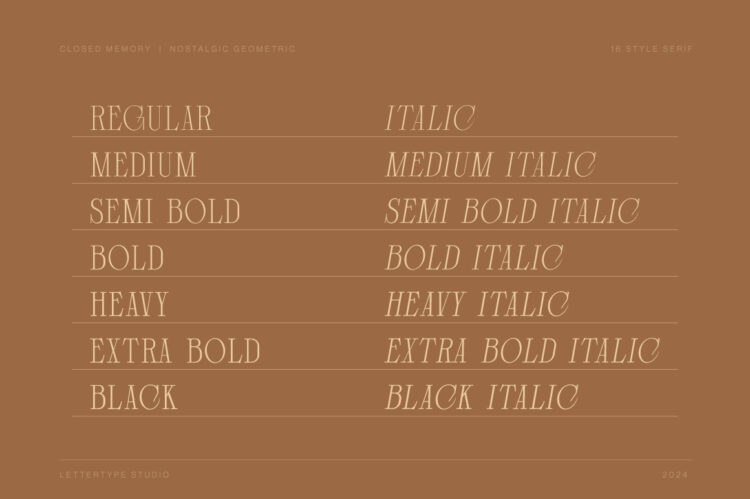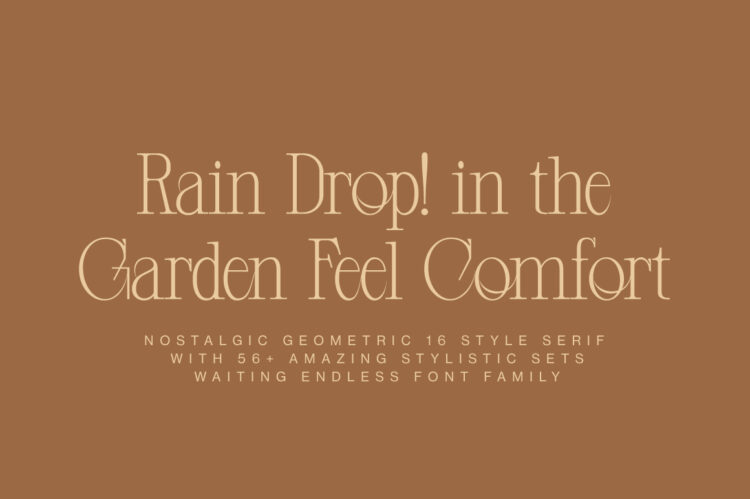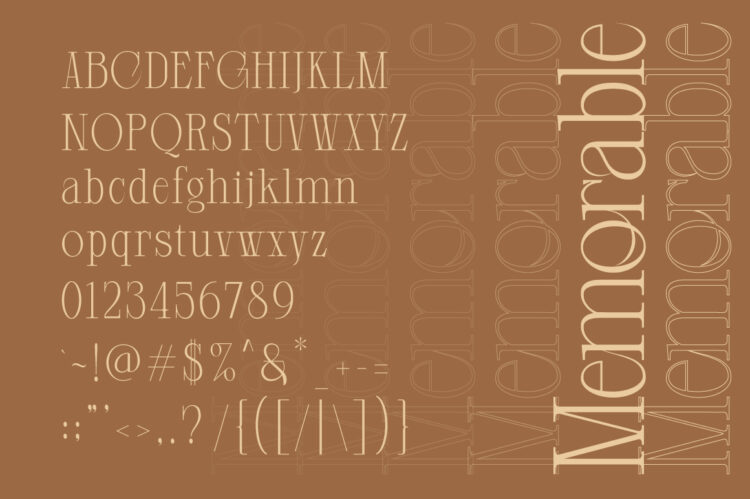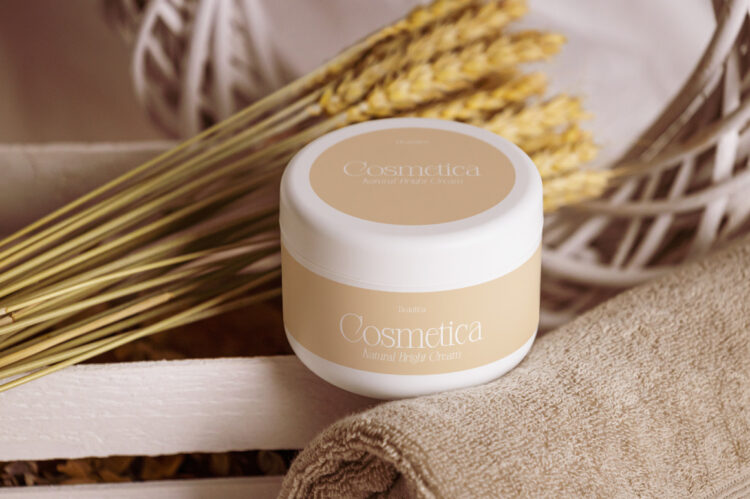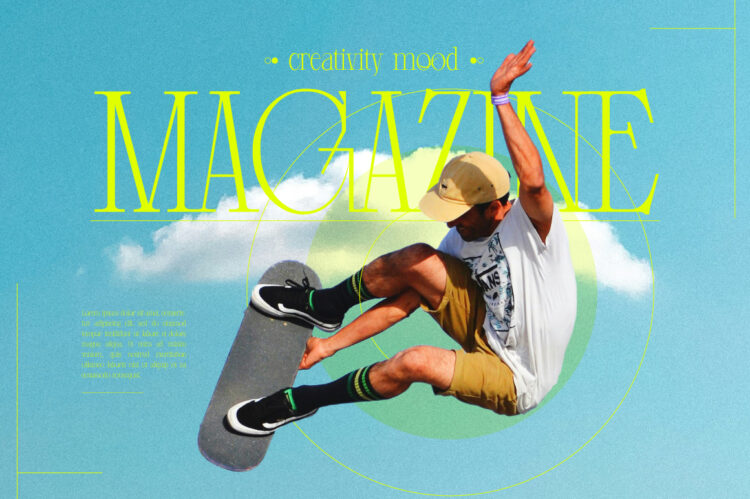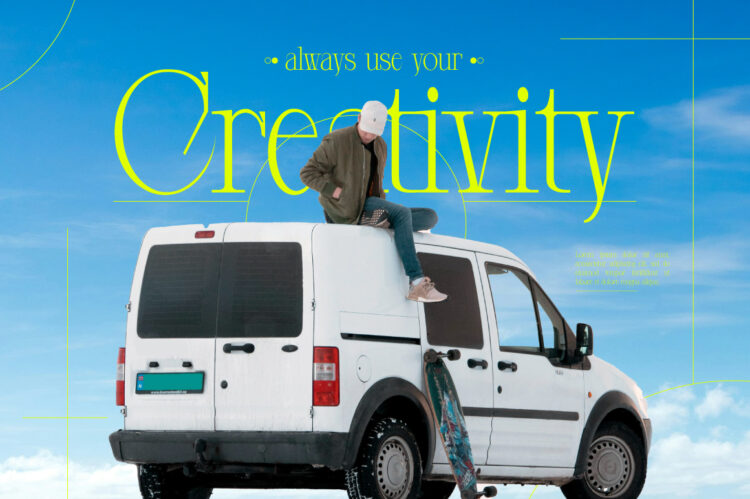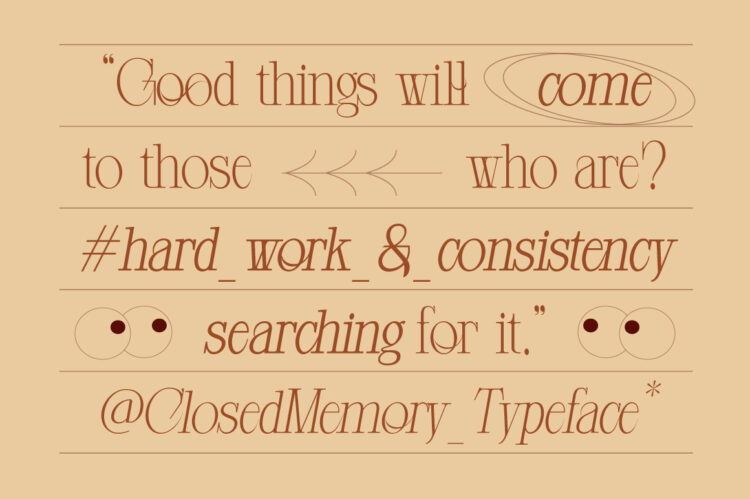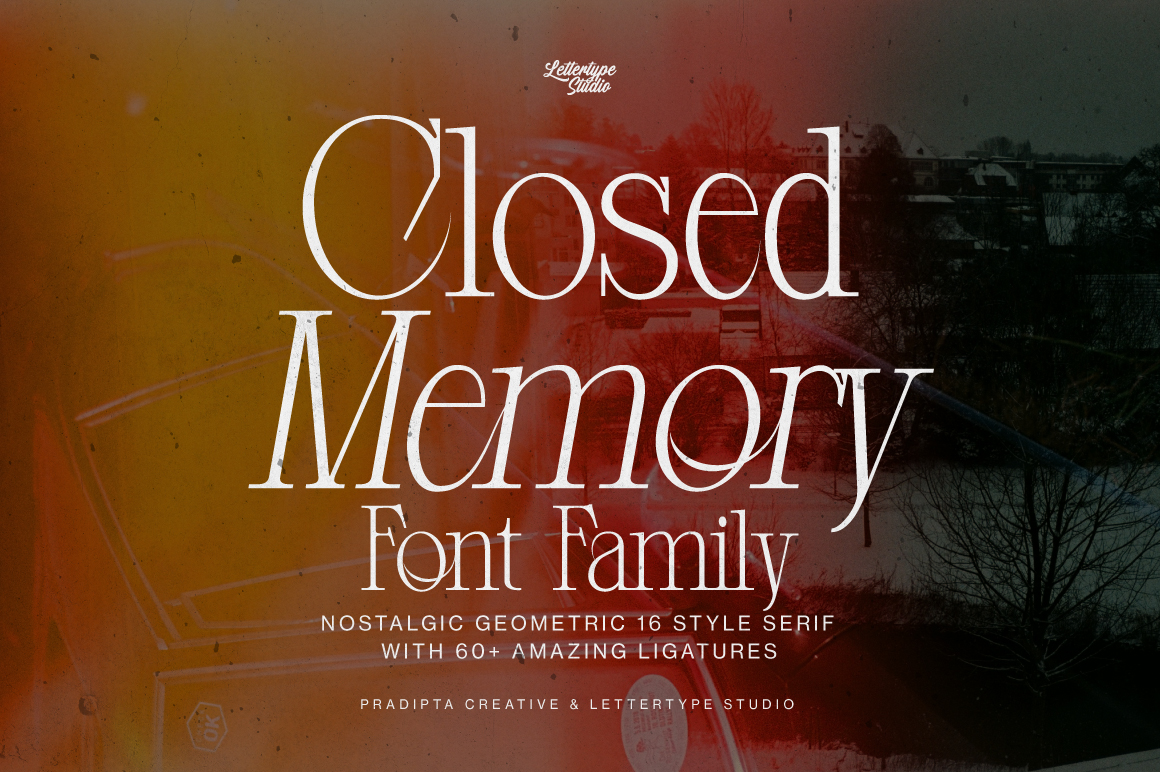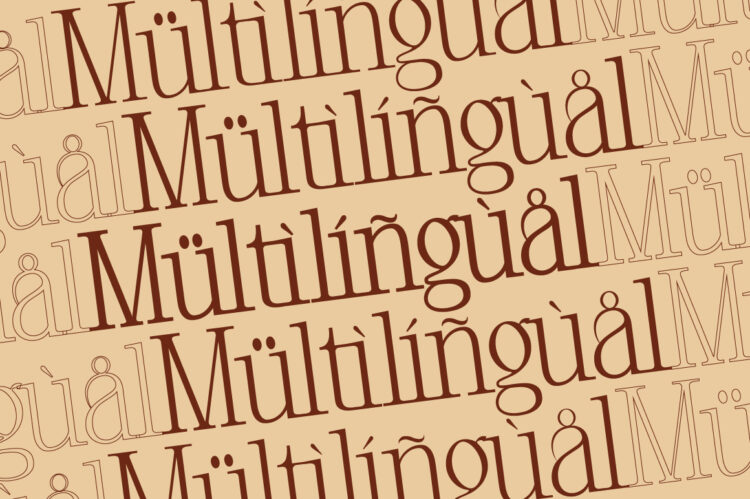
Closed Memory is a nostalgic serif font family inspired by the bold and geometric style of the 1980s. Its sharp serifs and strong letterforms evoke the energy of vintage technology, pop culture, and retro design, while maintaining a clean, contemporary balance.
Perfect for fashion branding, editorial layouts, posters, and packaging, Closed Memory blends retro aesthetics with modern precision. With 16 styles including italic variations, it offers versatility and character for designers looking to capture timeless 80s vibes in a fresh, professional way.
Closed Memory Features:
• Lowercase & Uppercase
• Numerals & Punctuation
• Alternates & Ligature
• Multilingual Support
• Font Family (16 Styles, Italic & Normal)
Closed Memory